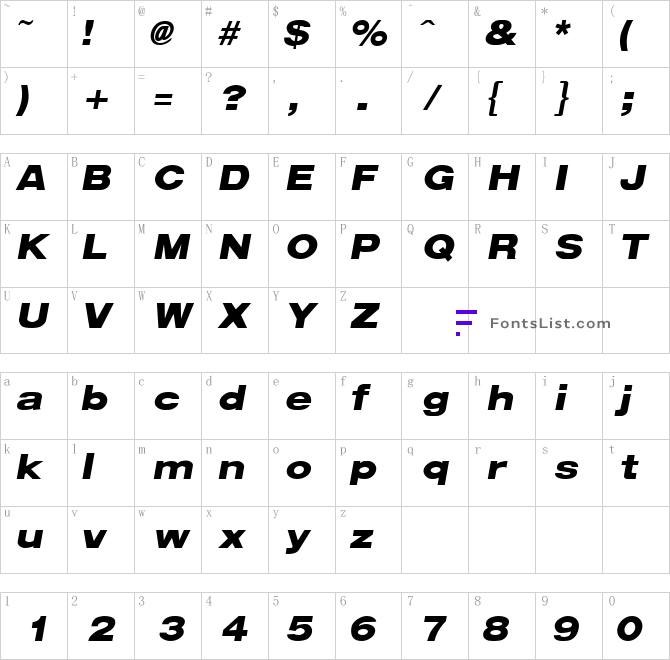
- Font Name:ArenaBlackExtended
ArenaBlackExtended-Italic-copy-1-.ttf is a very beautiful artistic font, ArenaBlackExtended-Italic-copy-1-.ttf is widely used in the design and printing of various books and pictures,ArenaBlackExtended-Italic-copy-1-.ttf has a strong visual impact,ArenaBlackExtended-Italic-copy-1-.ttf is a commonly used font in newspapers, magazines and books, and is used in posters, e-commerce Poster design, store design, logo design, font design and other fields.ArenaBlackExtended-Italic-copy-1-.